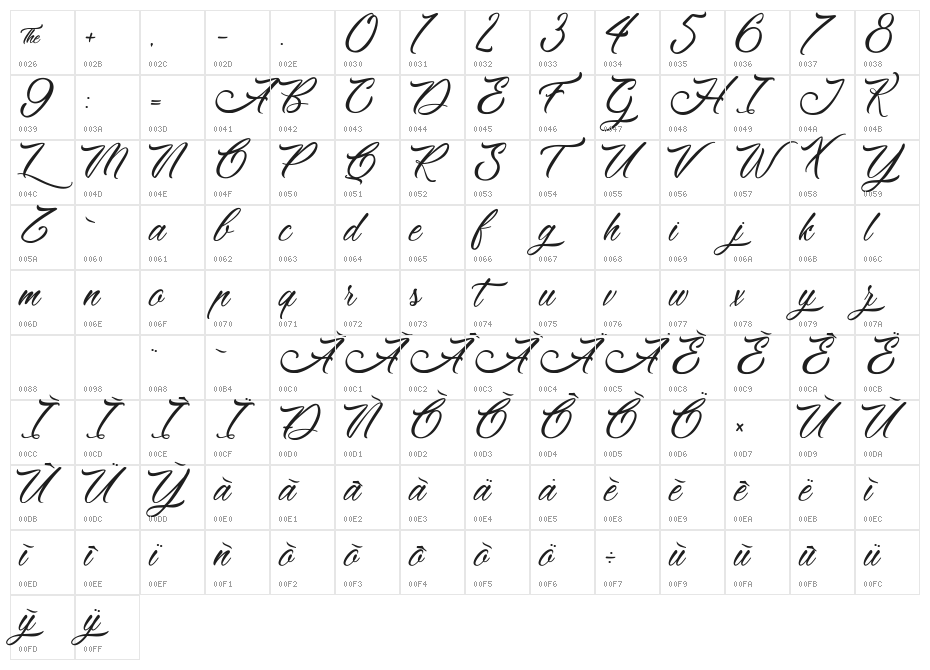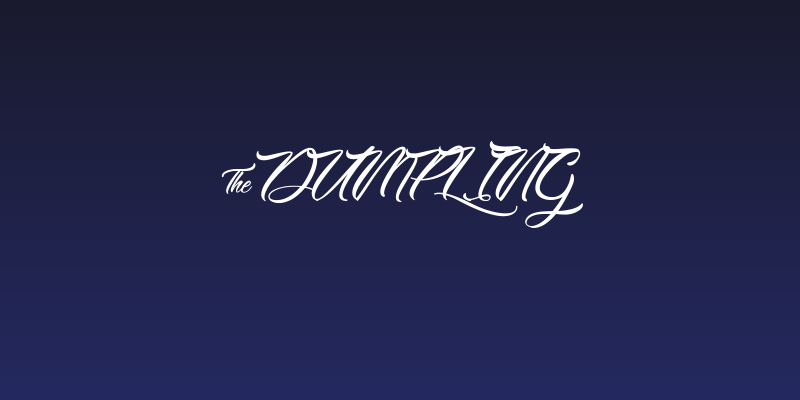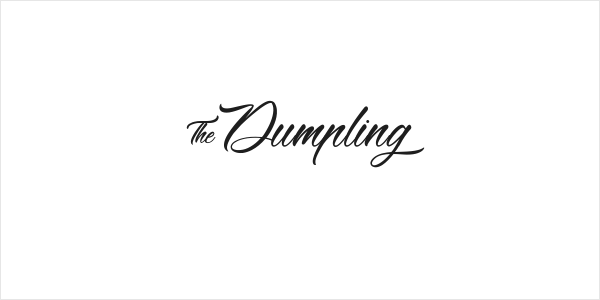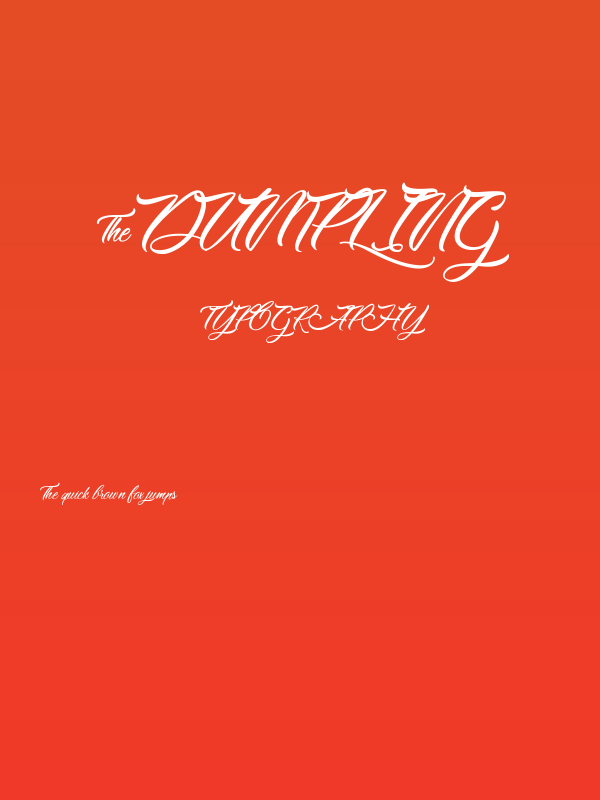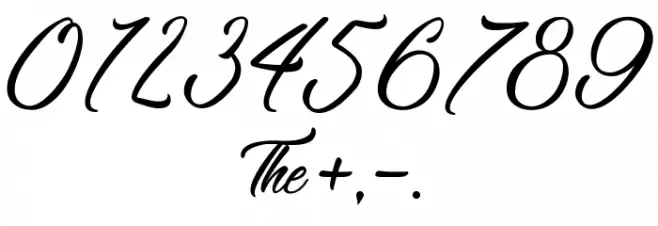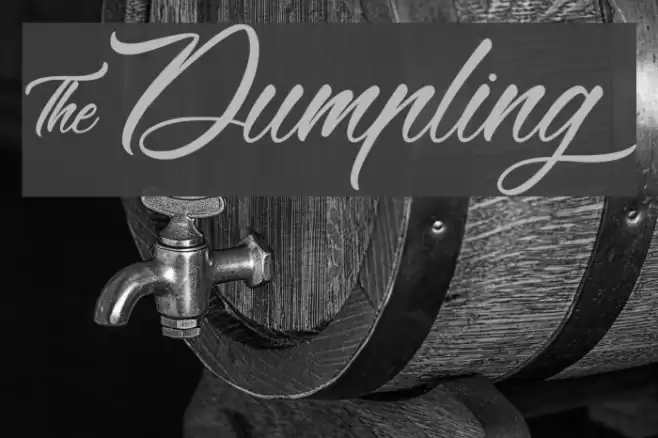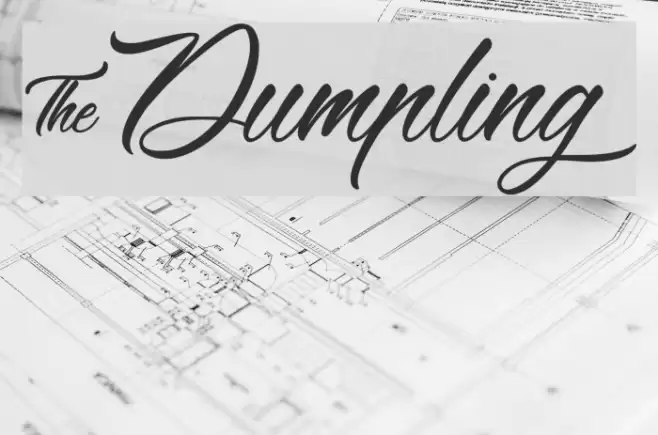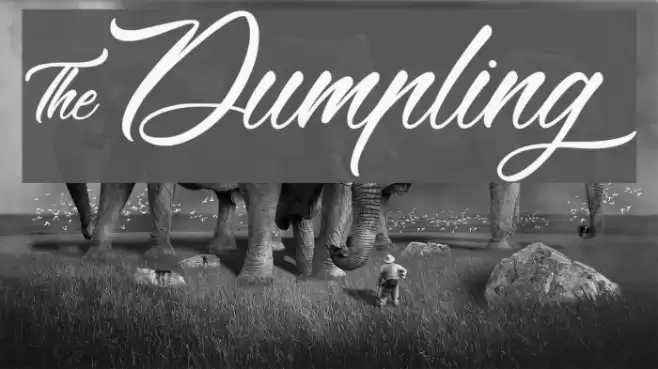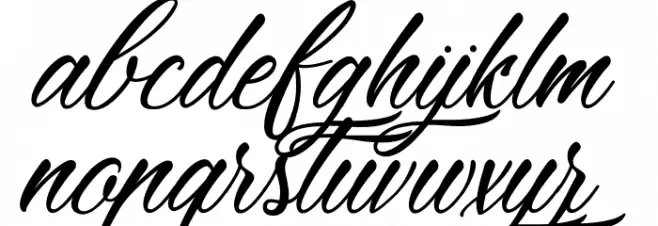
&Dumpling Font
| Caz de utilizare | Logos, Invitations, Branding |
| Proiecte propuse | Perfect for wedding invitations, elegant branding, greeting cards, and high-end product packaging. |